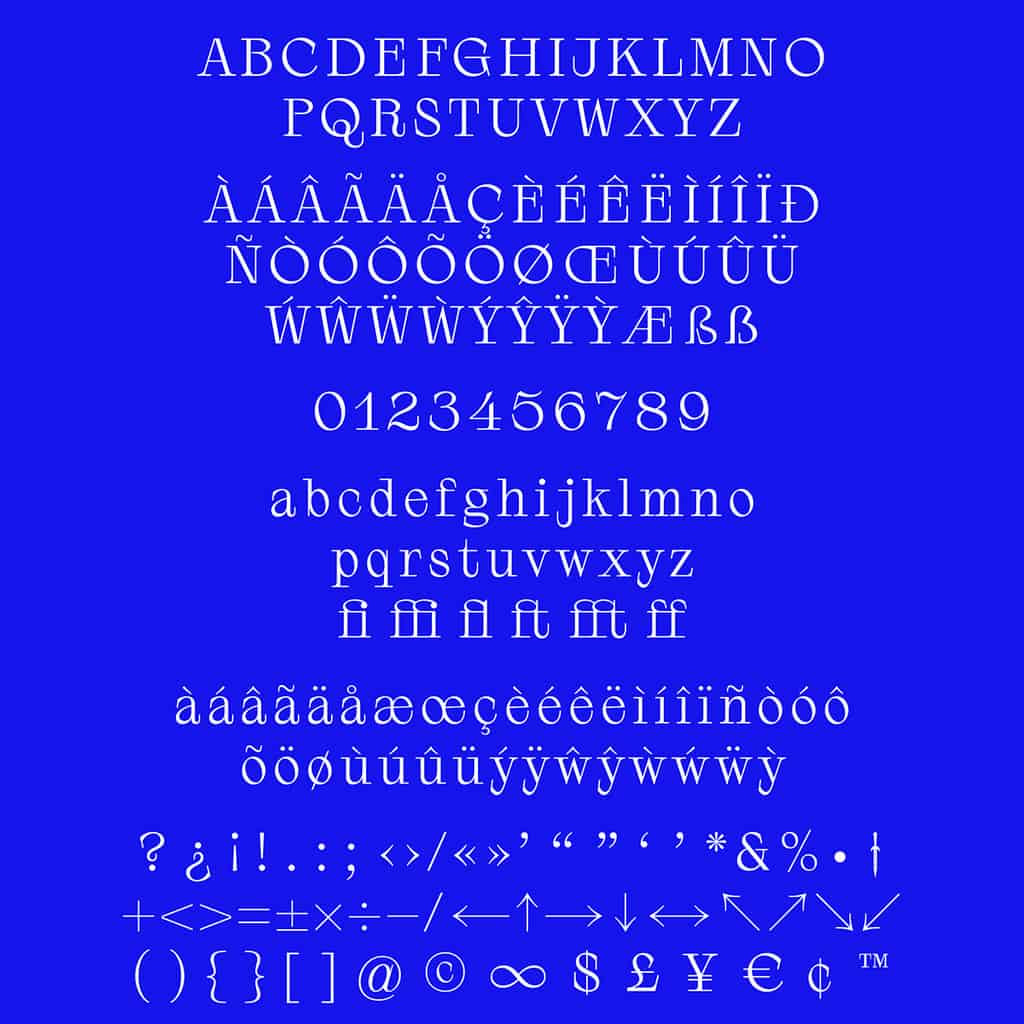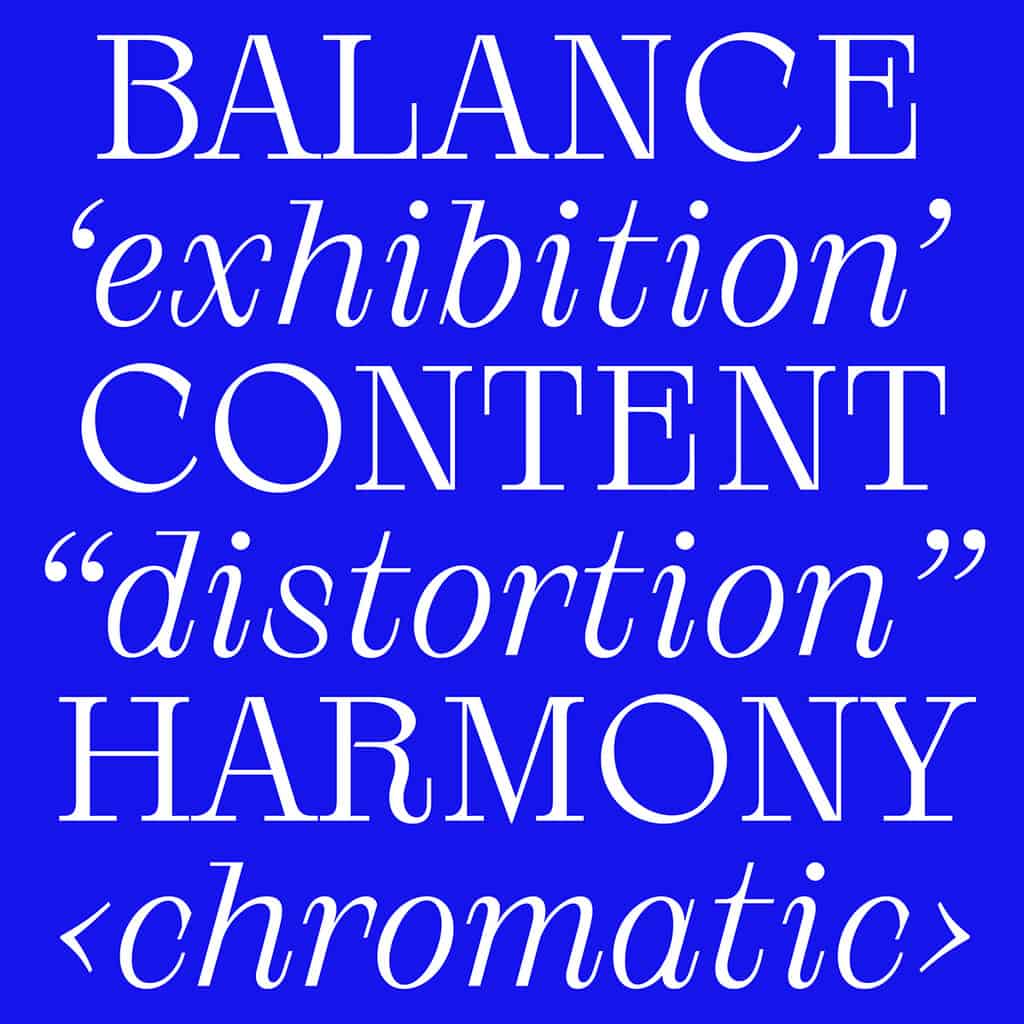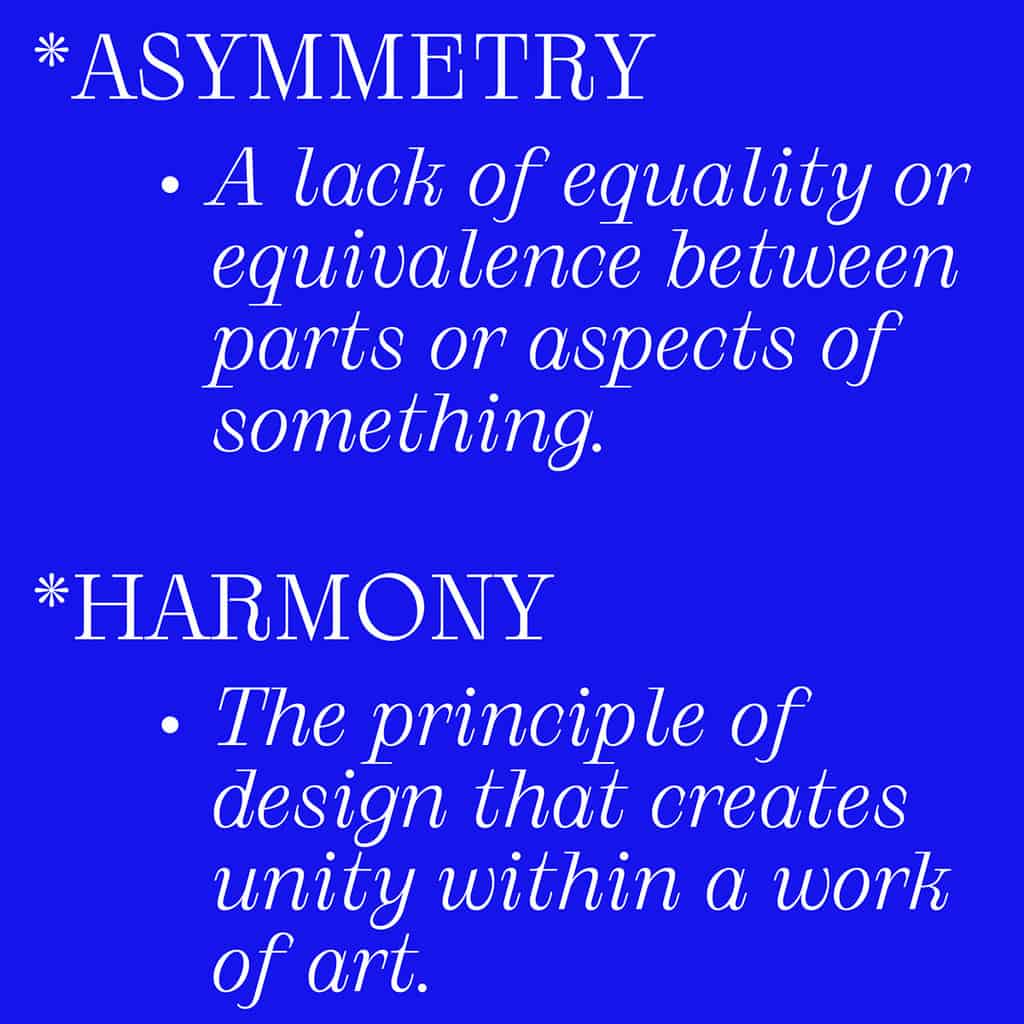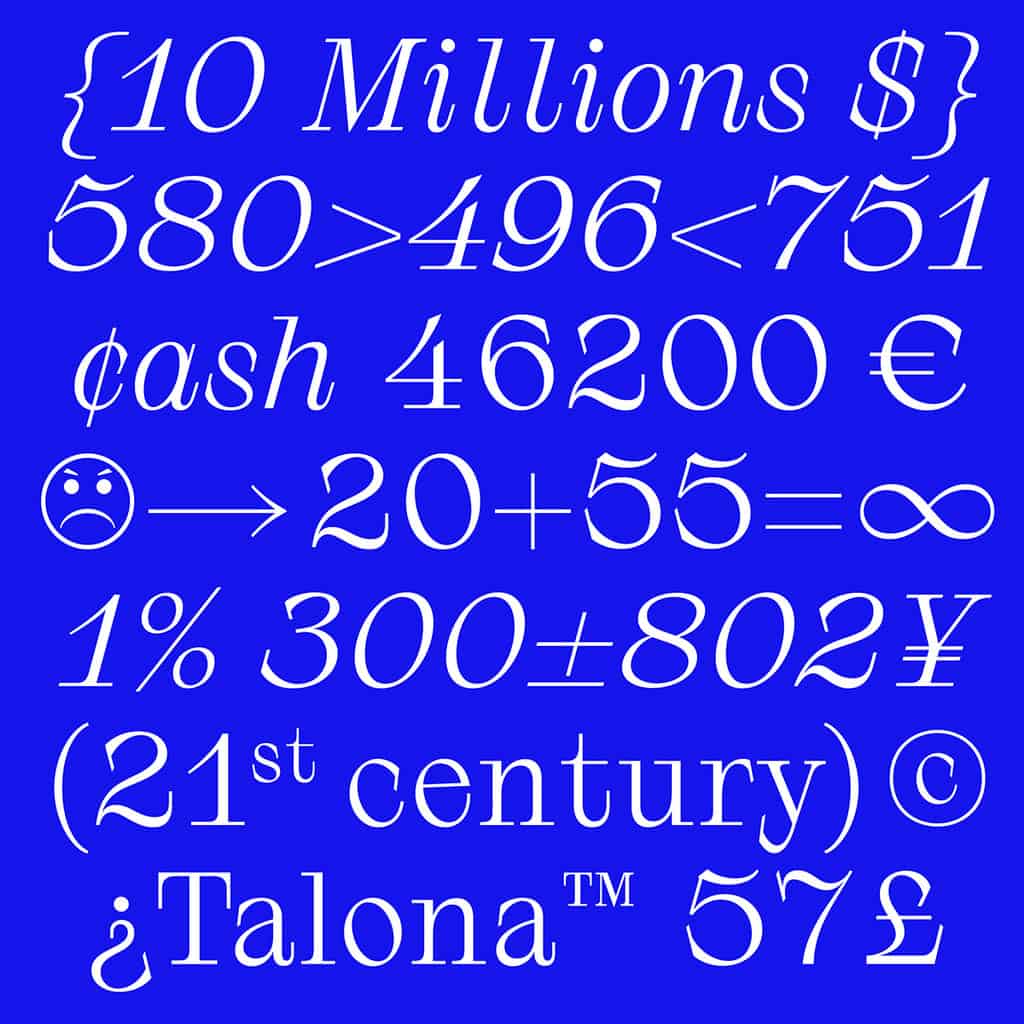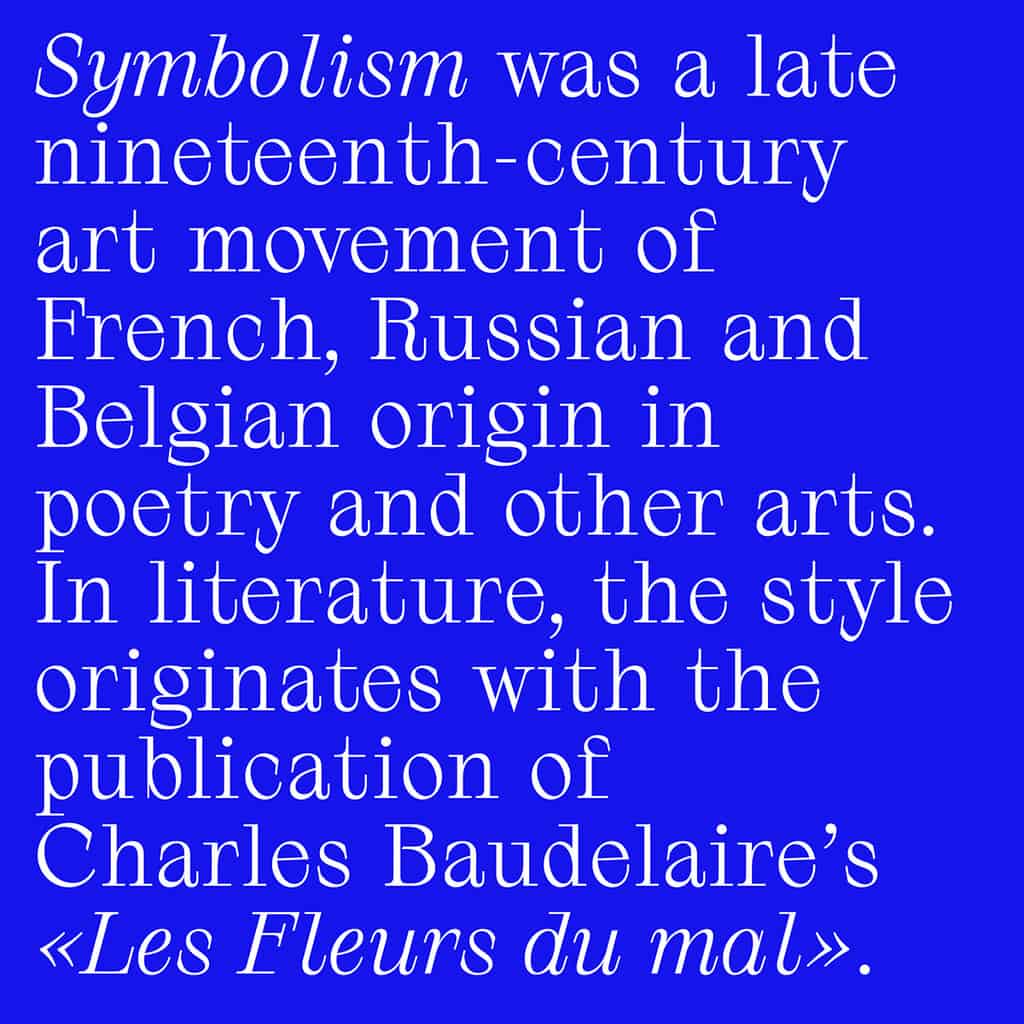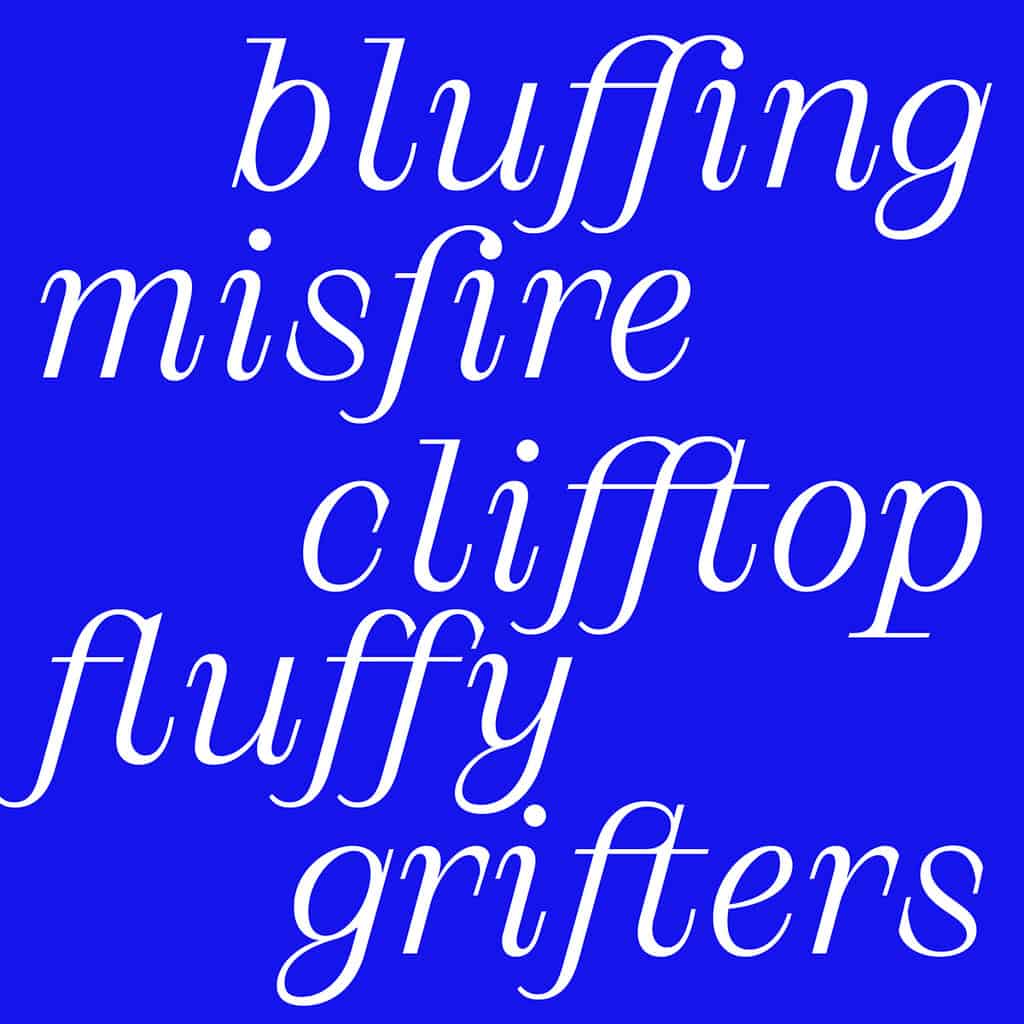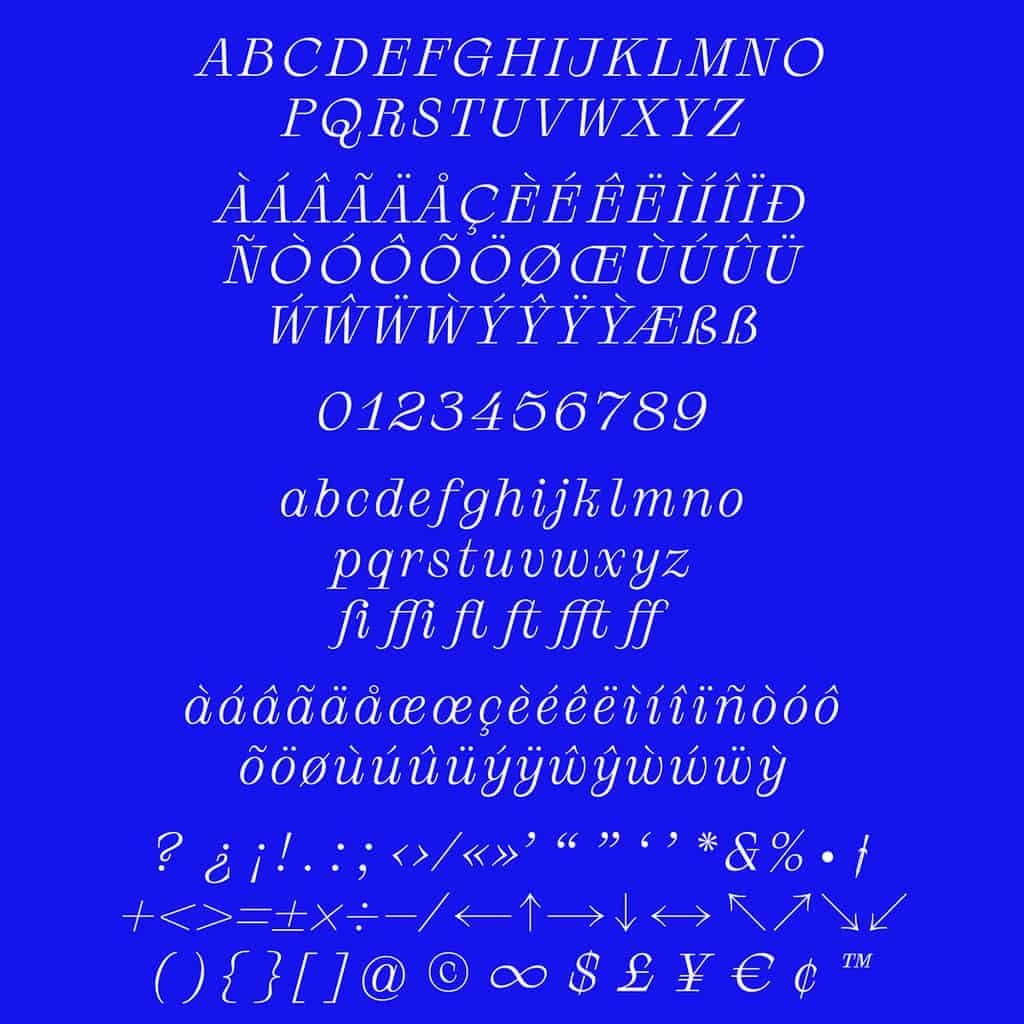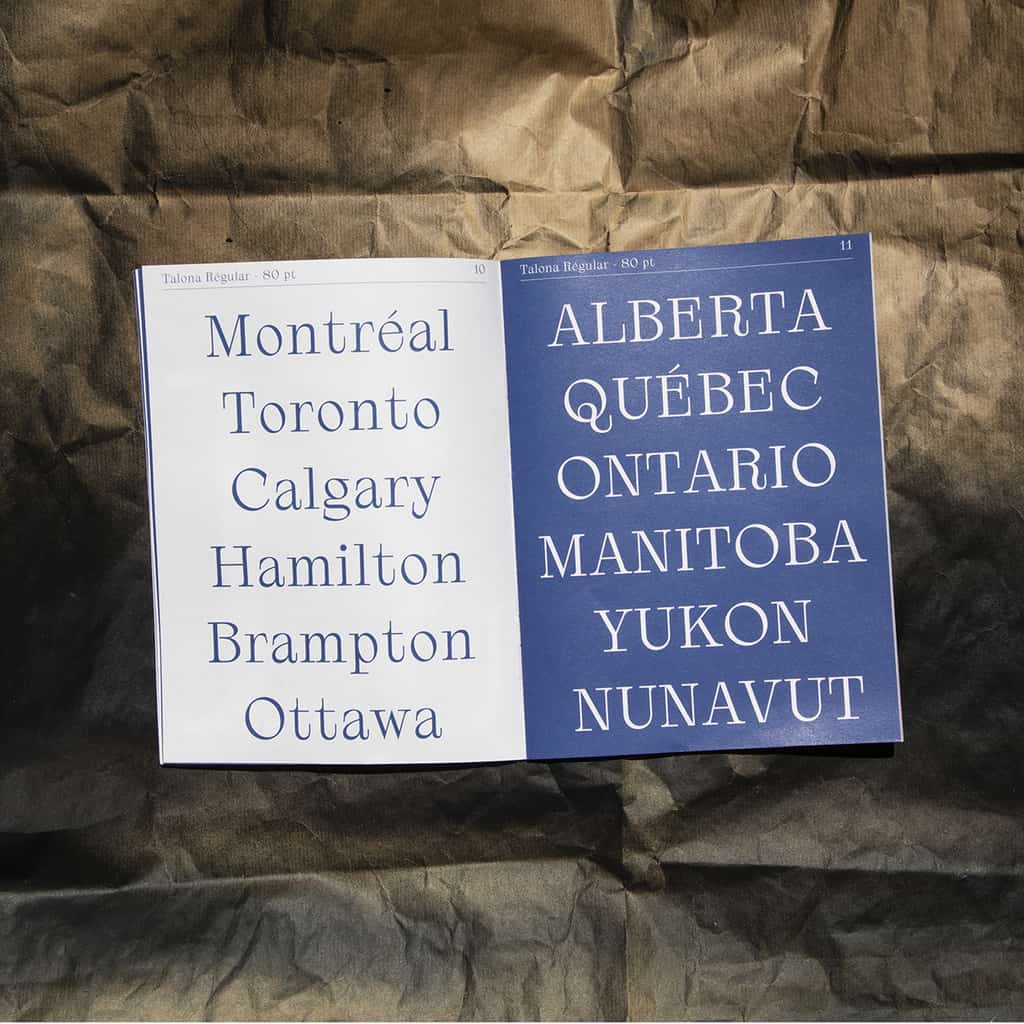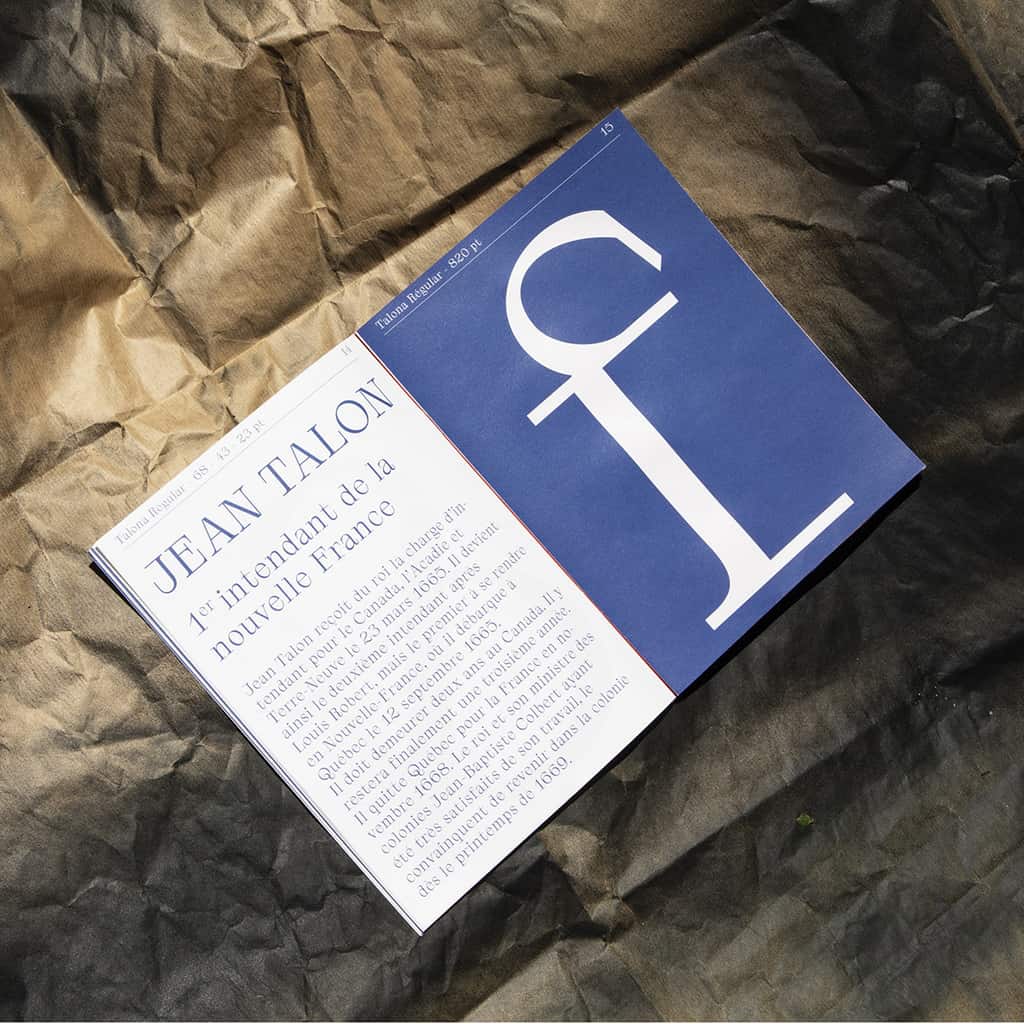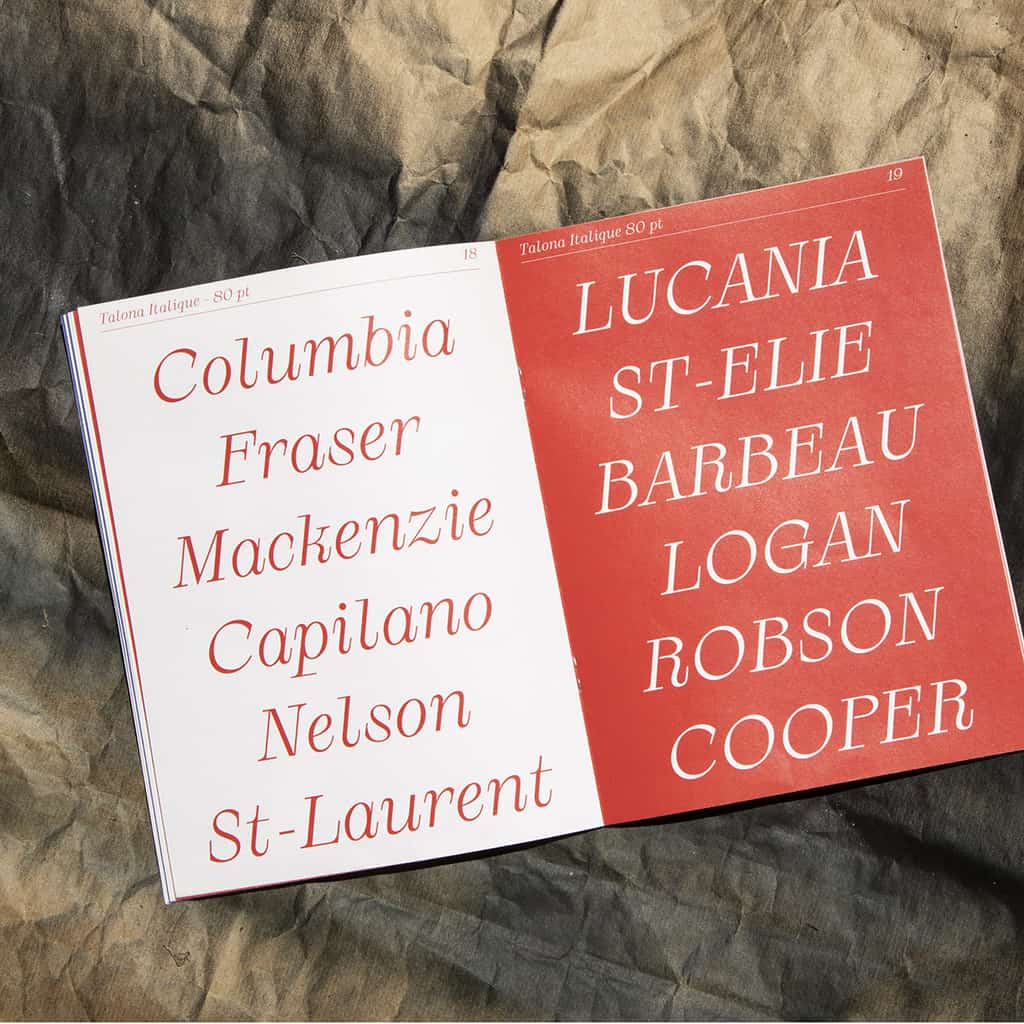
Talona
Talona is a typeface crafted with an intuitive blend of classic Didot forms and modern design elements. Inspired by traditional calligraphy techniques using a broad nib pen, it features sharp, asymmetrical serifs and a fresh, organic aesthetic.
Primarily tailored for titling, Talona also excels in mid-sized body text, imparting a vibrant and tactile quality to headlines.
Talona is a typeface crafted with an intuitive blend of classic Didot forms and modern design elements. Inspired by traditional calligraphy techniques using a broad nib pen, it features sharp, asymmetrical serifs and a fresh, organic aesthetic.
Primarily tailored for titling, Talona also excels in mid-sized body text, imparting a vibrant and tactile quality to headlines.